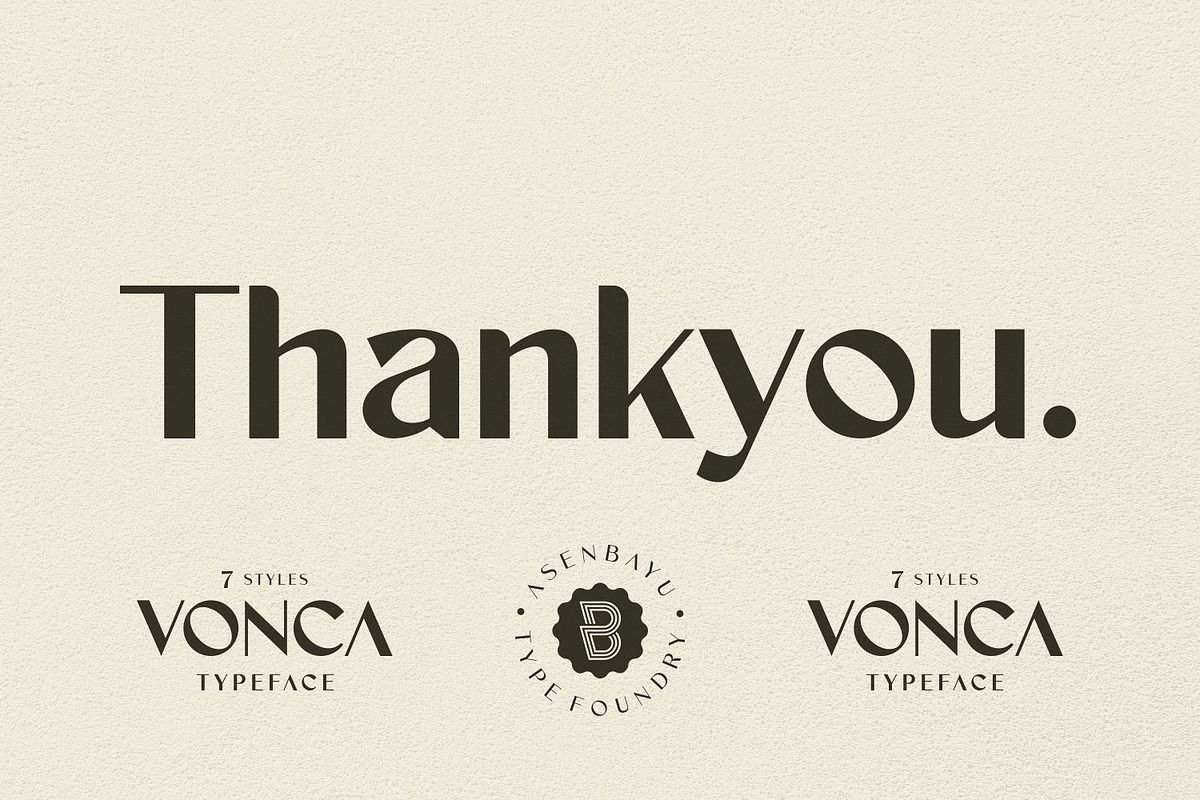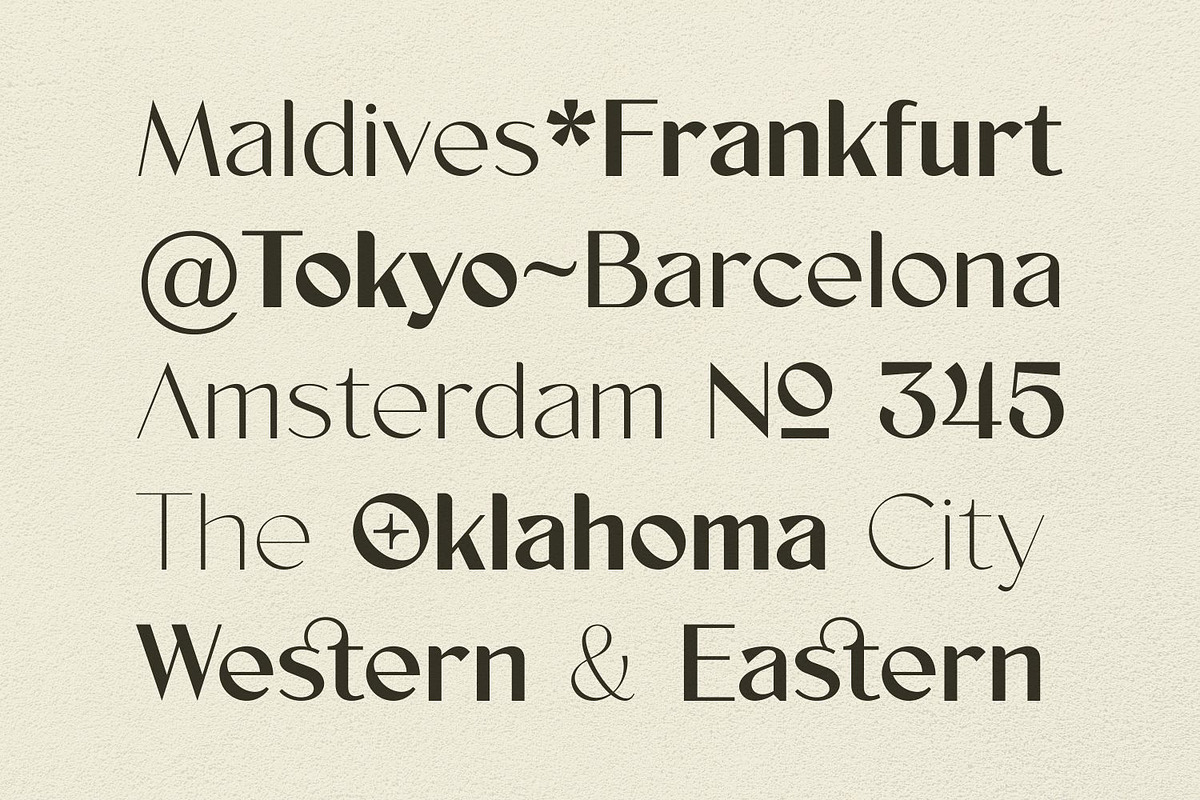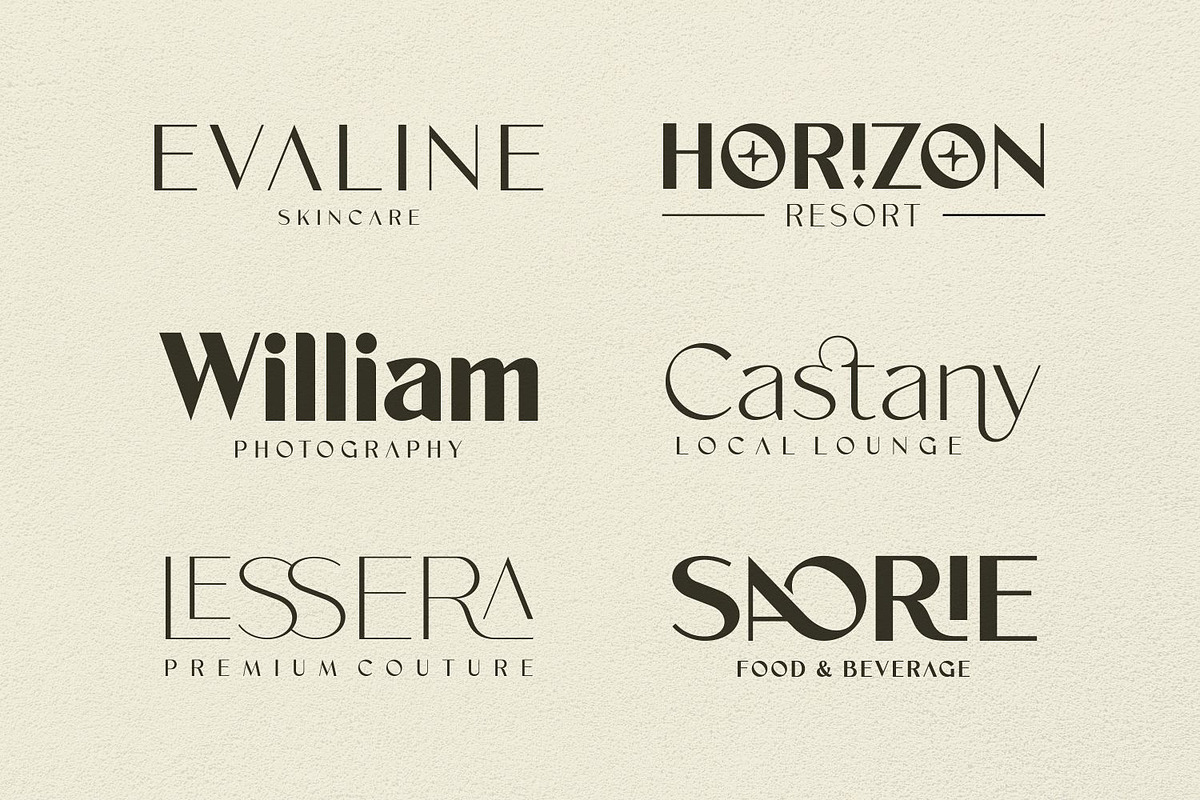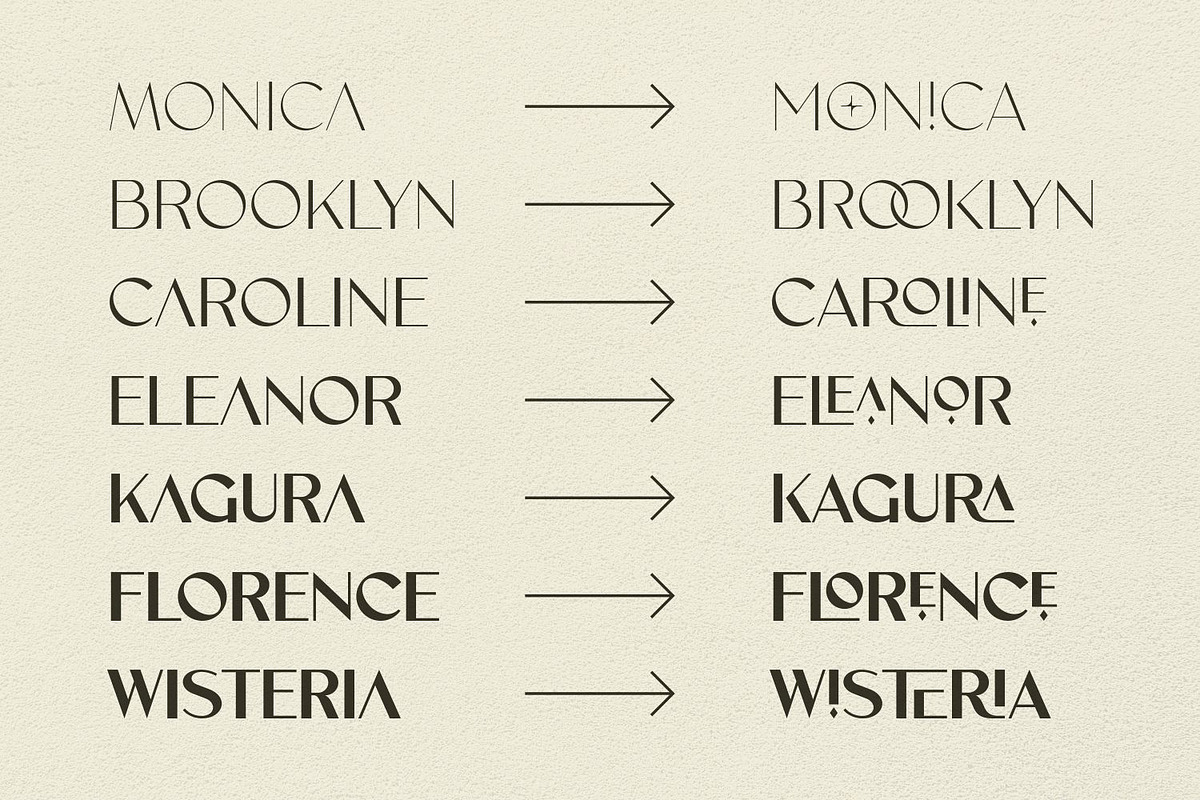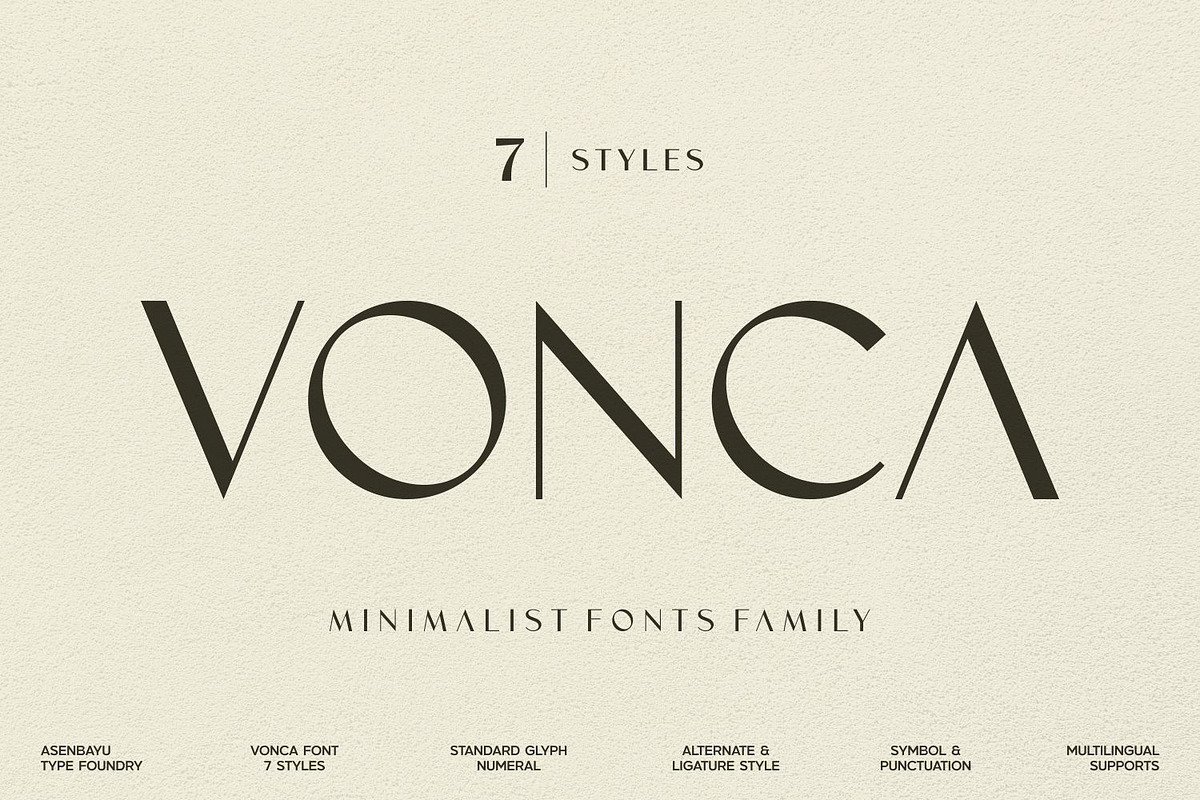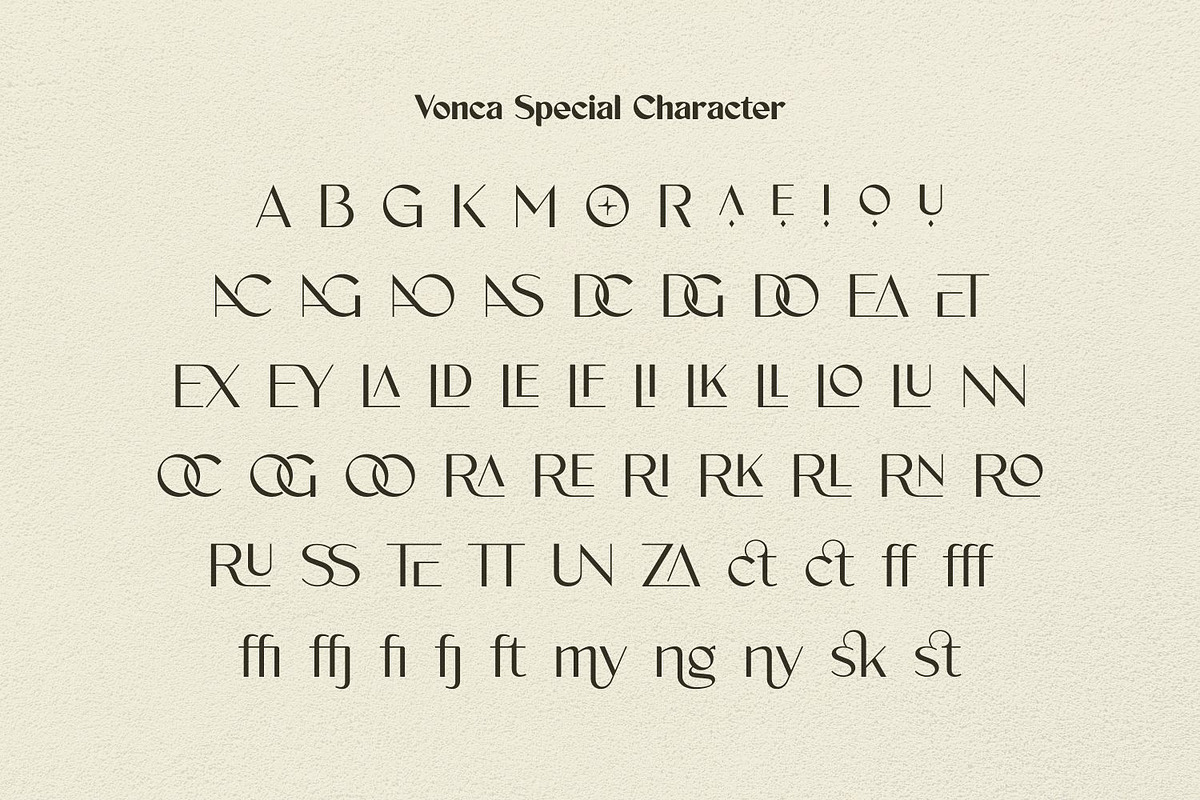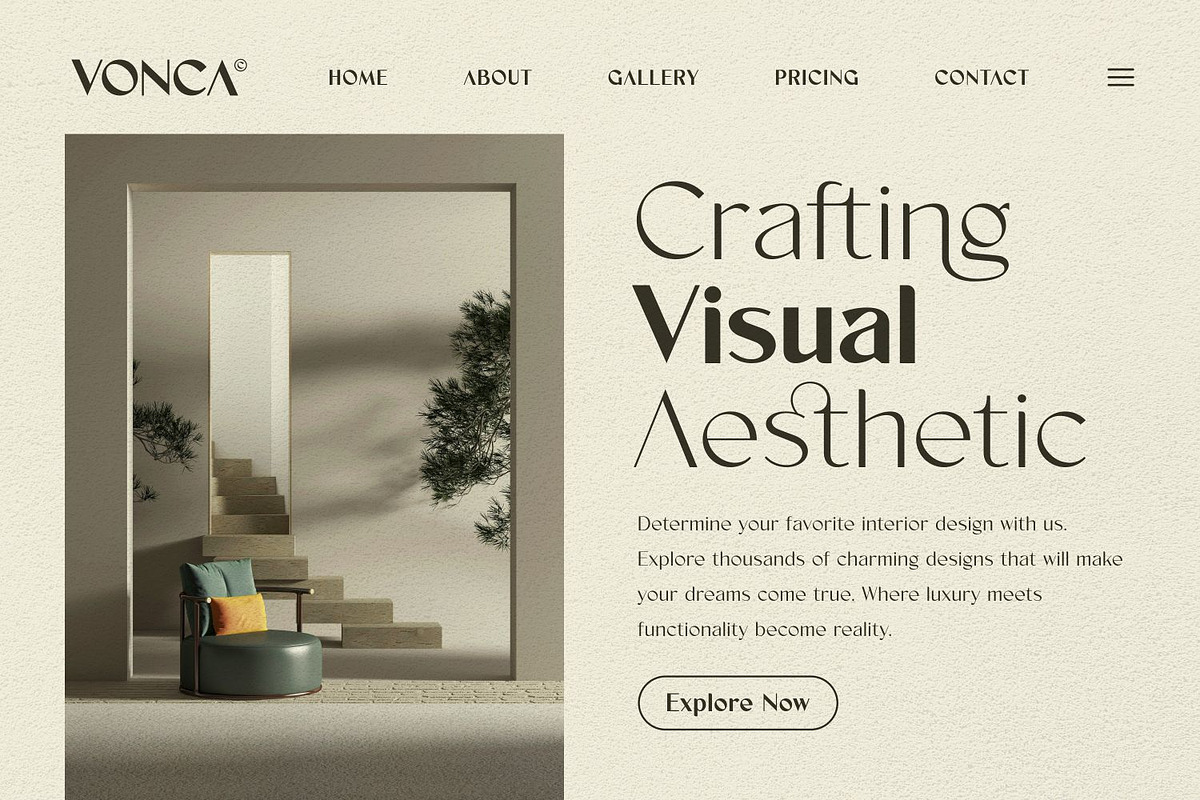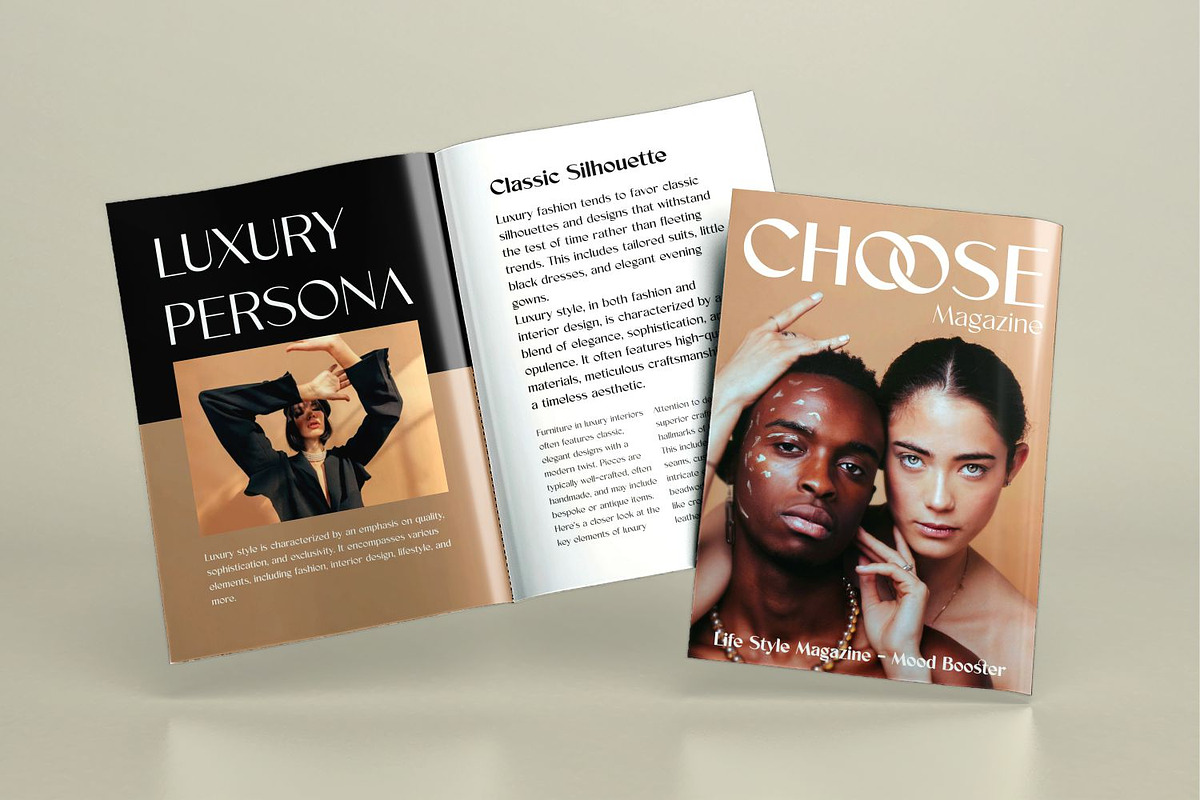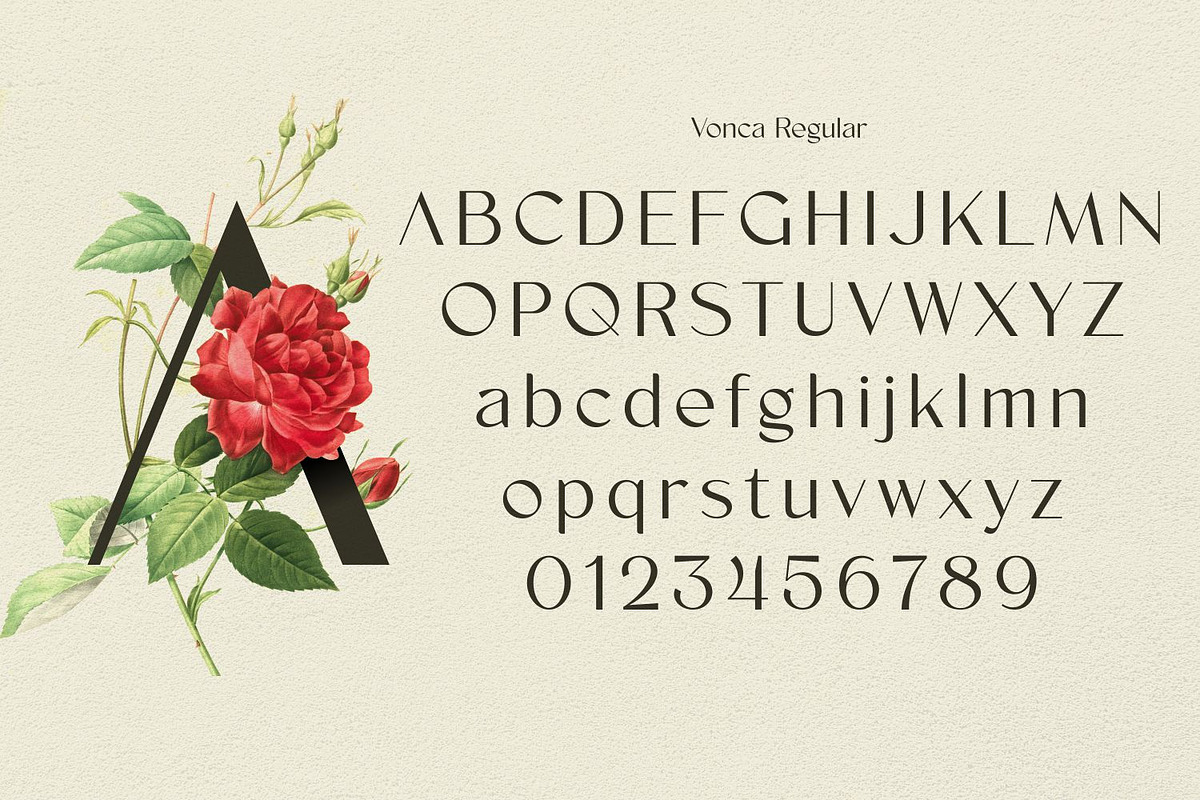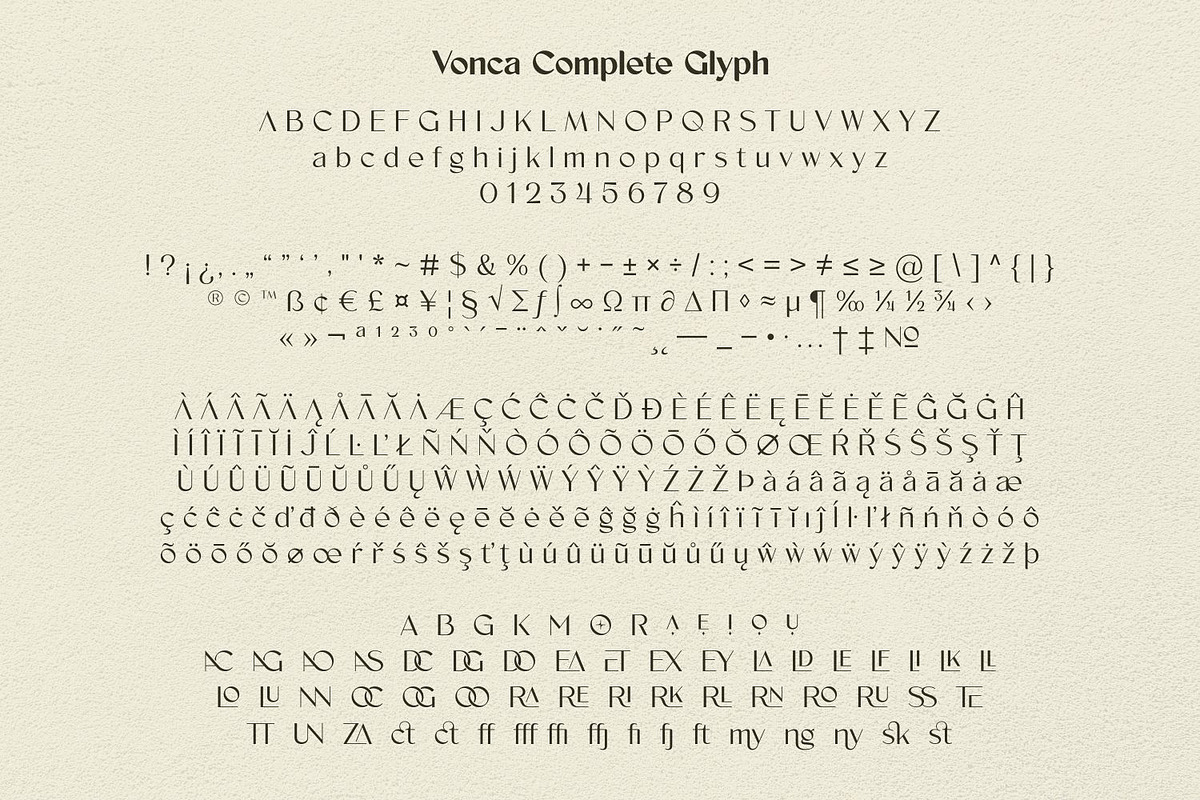
Vonca Font Family
Vonca is a modern minimalist font family that embodies simplicity, elegance, and contemporary design principles. It emphasizes clean lines, geometric shapes, creating a sleek and efficient visual aesthetic. You can use this font in both modern and vintage designs. This font is suitable for trendy packaging label designs, unique desired logos and branding, poster designs, fashion and many more.
Vonca font features:
- 7 styles
- Standard glyph
- Stylistic alternates & ligatures
- Symbol & punctuation
- Multiple languages supported.